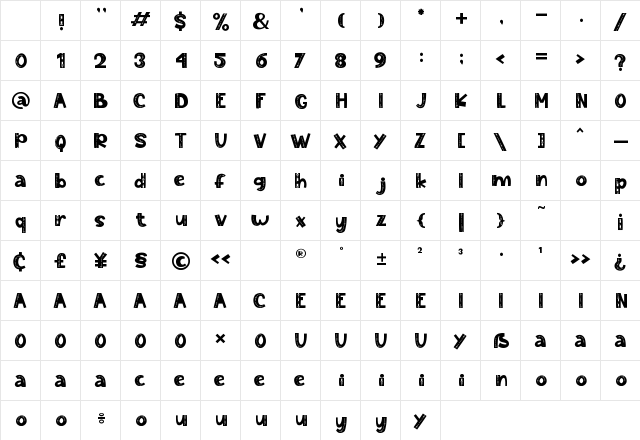
Complete Frosty Faktur Deco 2 Regular glyph index. Displaying only characters natively supported by Frosty Faktur Deco 2 Regular font.
Frosty Faktur Deco 2 is a composed and adaptable typeface that performs quietly and consistently across a wide range of design contexts.
Pro Tip: Use Frosty Faktur Deco 2 in both headline and body roles to test its range before committing to a single application.